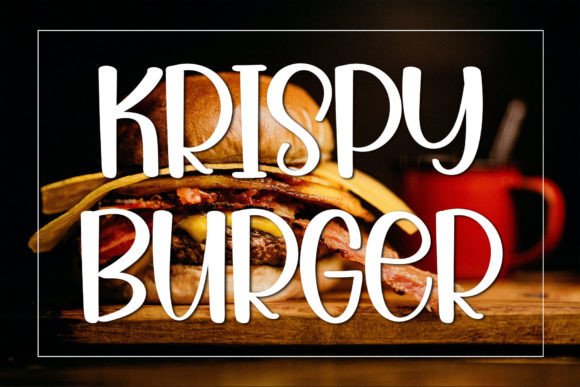
Prepare your taste buds for a feast of font flavors, as Krispy Burger struts into the spotlight, promising to elevate your design projects with a dash of boldness and a dollop of charm. This magnificent display font, crafted with precision by Inermedia STUDIO, is a culinary delight, ready to spice up your creative endeavors.
Krispy Burger isn't just any font; it's an experience, a journey through the world of typography, where each letter dances across the screen, beckoning you to join the party. Its energetic strokes and playful curves ignite a sense of joy, making it the perfect companion for those seeking to add a touch of whimsy and lightheartedness to their designs.
Picture yourself, dear designer, unleashing the power of Krispy Burger upon your wedding invitations, sending shivers of excitement down the spines of your guests. Its bold and captivating presence will announce your special day with a flourish, setting the tone for a celebration that will be remembered for years to come.
But this font's versatility knows no bounds. Whether you're crafting logos that demand attention or injecting personality into your social media posts, Krispy Burger will rise to the occasion, leaving an unforgettable impression on your audience. Let your imagination run wild as you explore the endless possibilities that await you with this typographic masterpiece.
For those with a penchant for the extraordinary, Krispy Burger is your secret weapon. Its distinctive charm will transform your creative visions into reality, leaving a trail of awe and admiration wherever it goes. Trust this font to be your loyal companion, adding a dash of magic to every project you undertake.
Indulge in the sheer delight of Krispy Burger, and let its captivating essence elevate your designs to new heights. Savor the satisfaction of crafting projects that exude individuality and style, knowing that you've chosen the font that's as unique as you are.